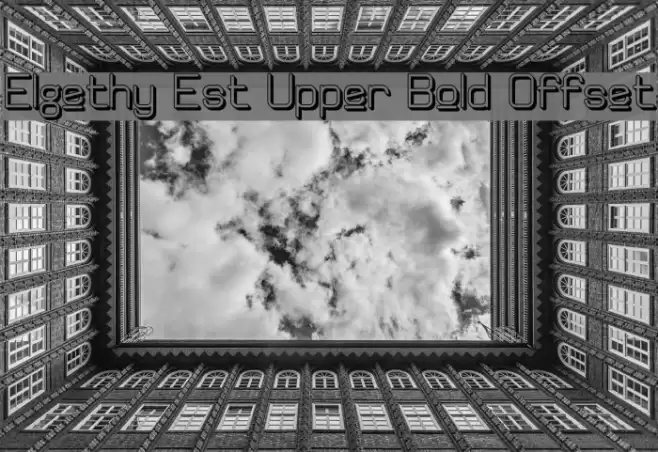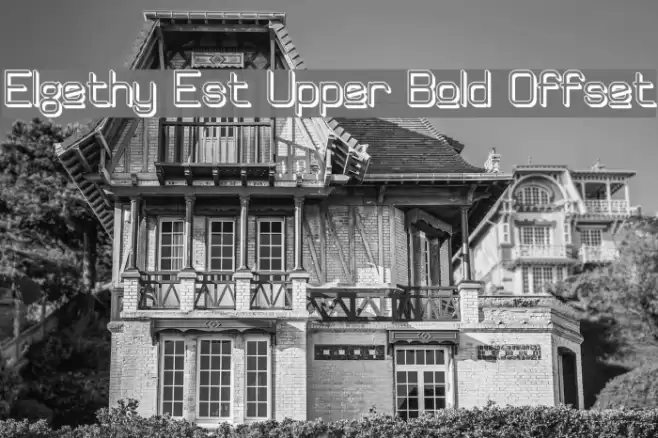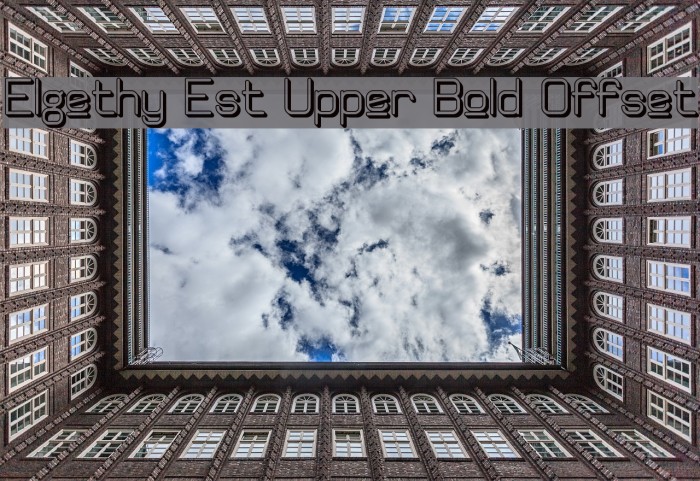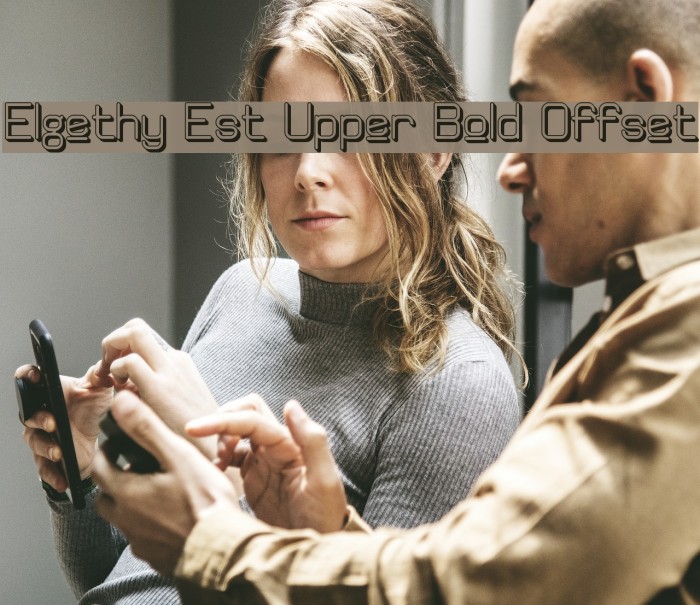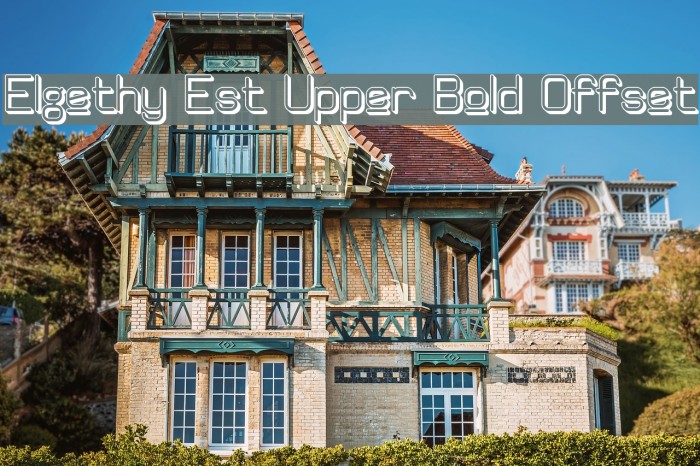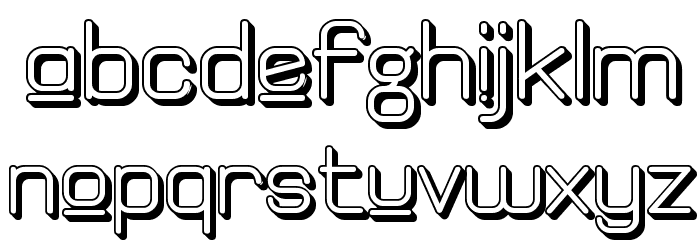
Elgethy Est Upper Bold Offset Font
Elgethy Est Upper Bold Offset Description
This font features a bold, modern design with a unique offset outline that gives it a three-dimensional appearance. The characters are geometric and structured, with rounded edges that soften the overall look. The uppercase and lowercase letters maintain a consistent style, with a uniform height that enhances readability. The numbers and special characters are designed to match the letterforms, providing a cohesive appearance across all elements. This font's distinct style makes it suitable for projects that require a contemporary and eye-catching typeface.
A bold, modern font with a unique offset outline and geometric design from Uncategorized fonts.
- Proposed Projects: Ideal for branding, posters, headlines, and digital media where a modern and striking appearance is desired.